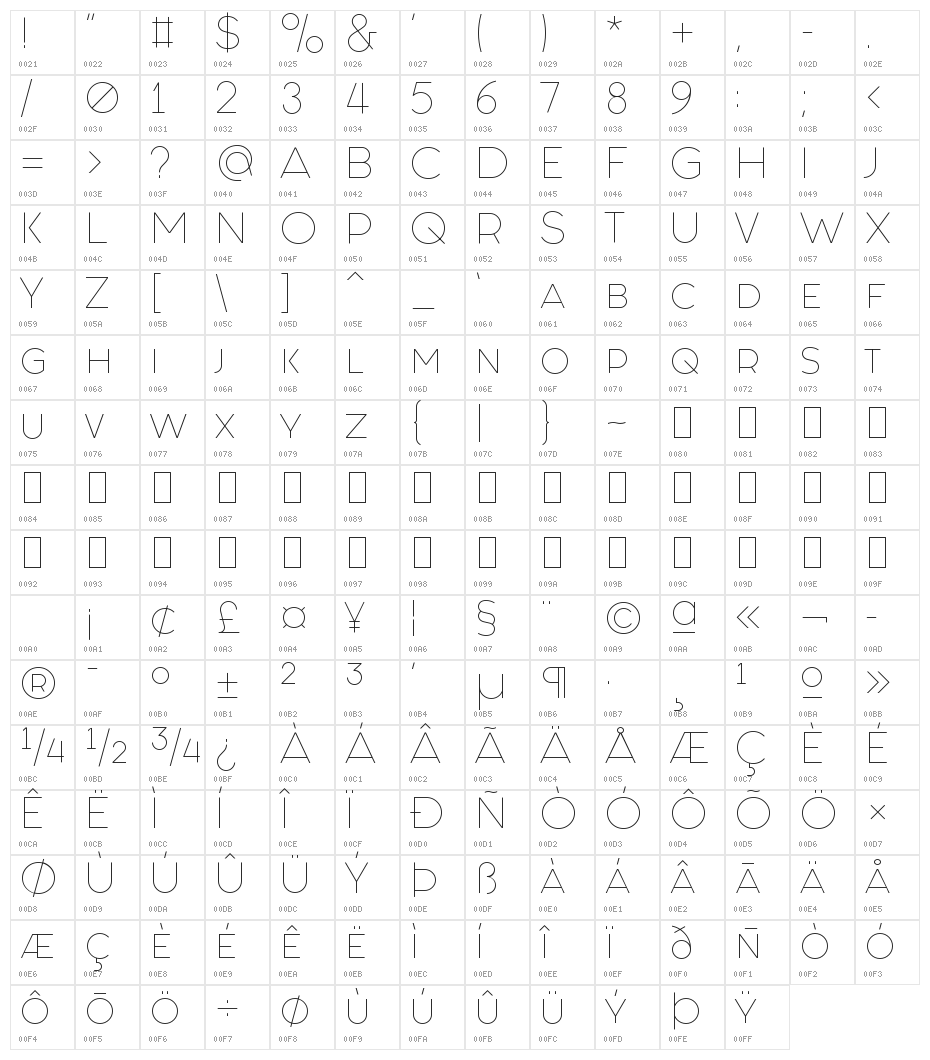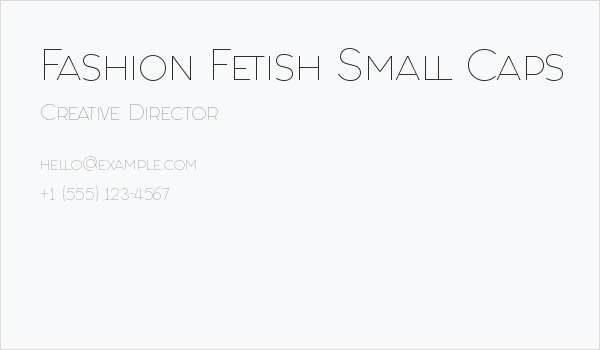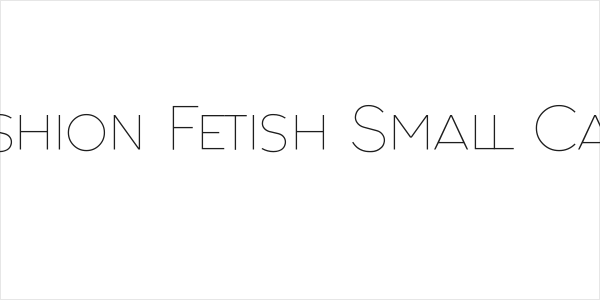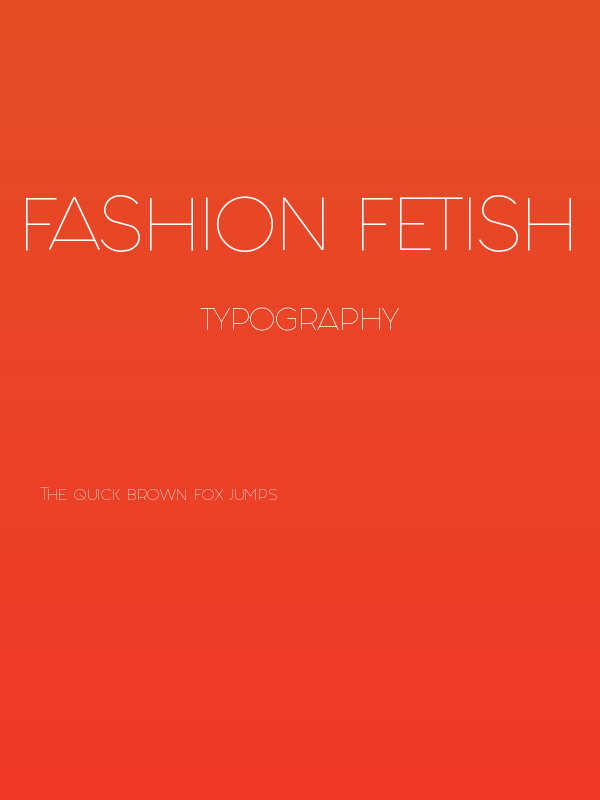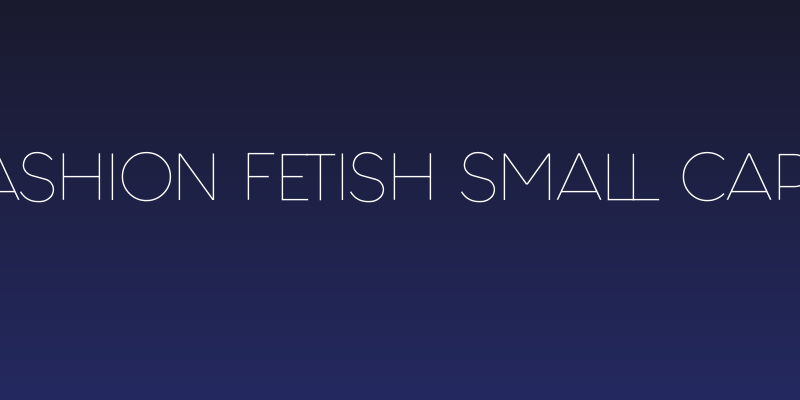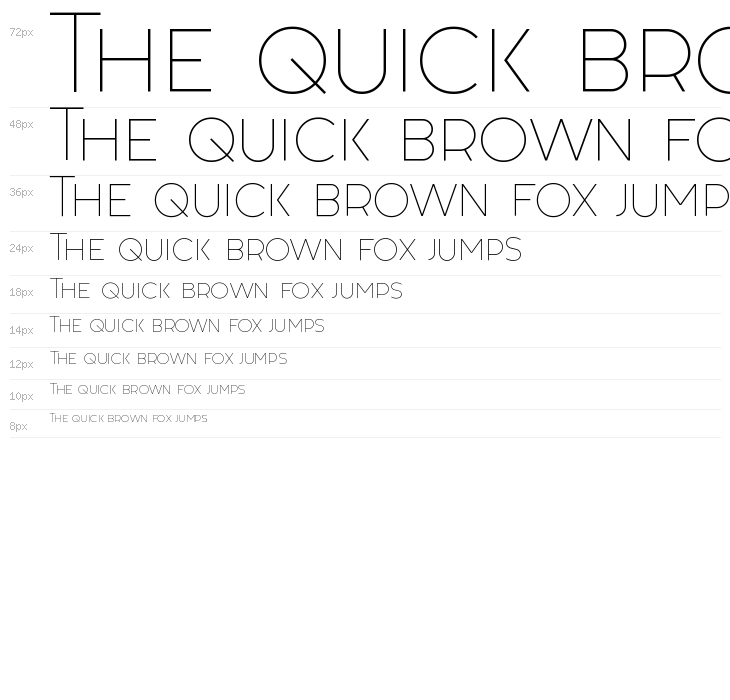
Fashion Fetish Small Caps Font
Fashion Fetish Small Caps Description
This font features a sleek, modern design with clean lines and a minimalist aesthetic. The characters are uniformly thin, giving it a light and airy feel. The uppercase and lowercase letters maintain a consistent height, creating a harmonious and balanced look. The numerals are clear and straightforward, complementing the overall simplicity of the design. Special characters are elegantly integrated, maintaining the font's cohesive style. This font is ideal for projects that require a contemporary and sophisticated touch.